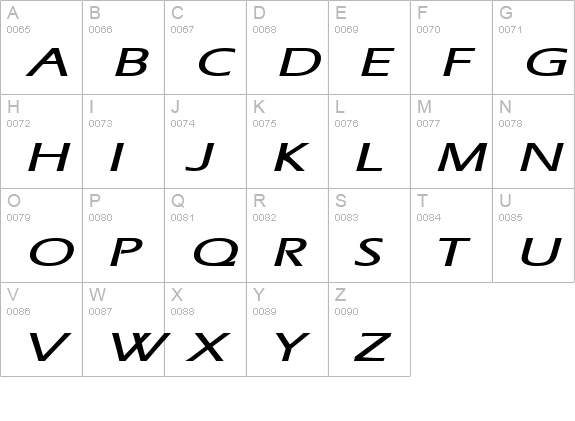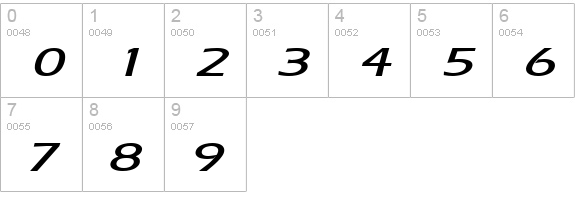
Eric Extended BoldItalic is a distinctive, extended-width variant in the Eric typeface family \xE2\x80\x94 well suited to design and typography projects.
The Eric Extended BoldItalic font exudes a sense of boldness and sophistication, making it a perfect choice for projects that require a touch of elegance. Its sleek and modern design adds a unique flair to any text, making it stand out effortlessly. The combination of bold weight and italic style creates a striking visual impact, ideal for titles, headlines, and branding materials. And the best part? Eric Extended BoldItalic font is available for free download at FontsMarket.com, making it easily accessible for designers, creatives, and anyone looking to enhance their projects with a touch of style. Whether you're working on a website, poster, or logo, this font will surely elevate your design to the next level. Don't miss out on the opportunity to add this versatile and eye-catching font to your collection today!